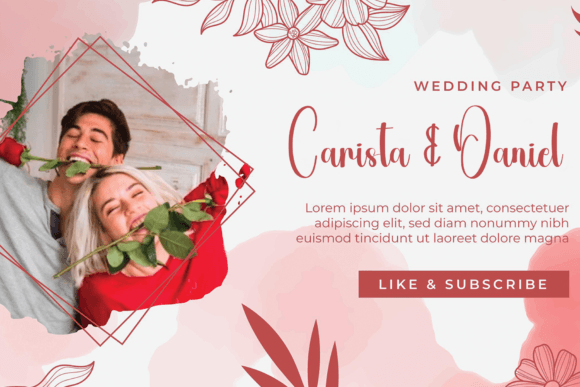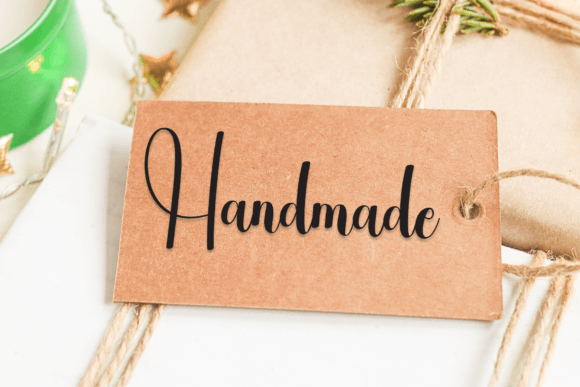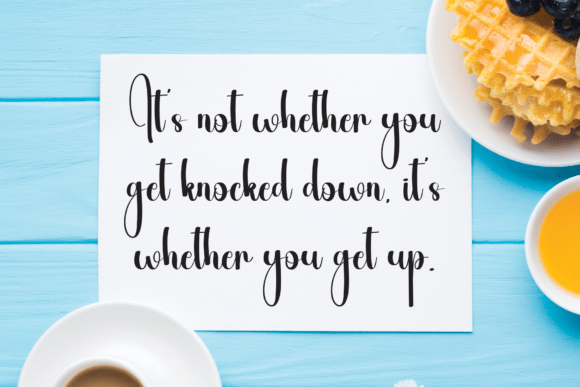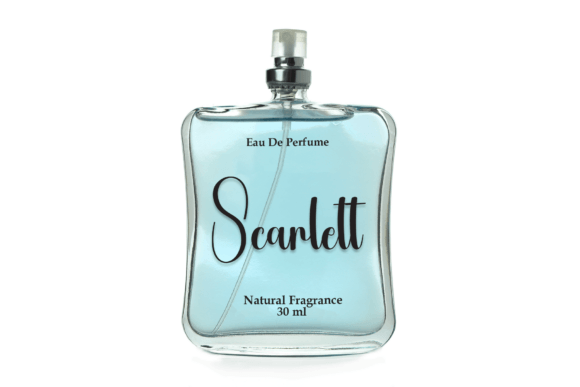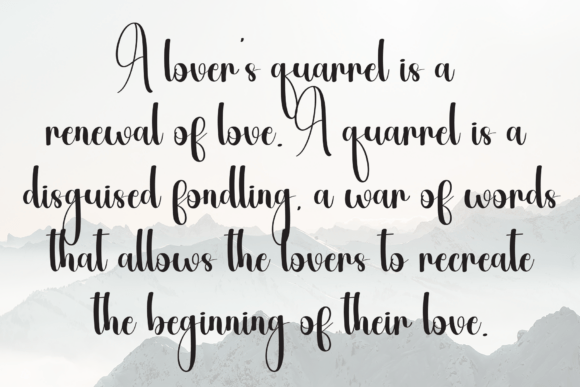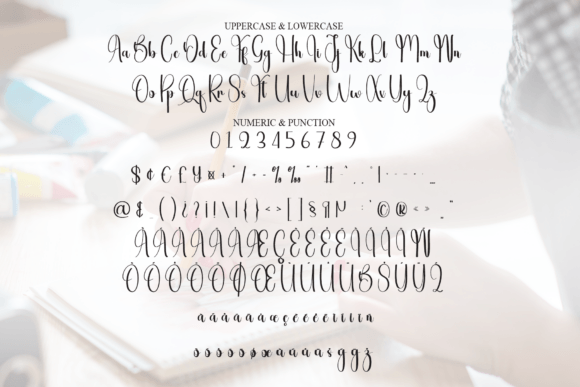
Introducing Autography Font: The Perfect Blend of Sweetness and Friendliness
Are you tired of using the same old fonts for your design projects? Do you want to add a touch of whimsy and fun to your wedding invitations, cards, and other creative endeavors? Look no further than Autography Font, an enchanting handwritten display font that effortlessly merges sweetness and friendliness into every curve and line.
A Font that’s Precious yet Playful
Autography Font is a unique and captivating font that is both precious and playful. Its endearing charm and lighthearted aesthetic make it the perfect accomplice for scribing wedding invitations, crafting cards, or infusing any design project with an uninhibited touch of fun. With its delicate and cursive strokes, this font is sure to add a touch of elegance and sophistication to any design.
Whether you’re a designer or a crafter, Autography Font is the perfect addition to your font collection. Its versatility and flexibility make it suitable for a wide range of design projects, from wedding invitations and cards to posters and social media graphics. With Autography Font, you can add a personal touch to your designs and make them stand out from the crowd.
Key Features of Autography Font
- Handwritten display font: Autography Font is a handwritten display font that is designed to add a personal touch to your designs.
- Sweet and friendly: This font effortlessly merges sweetness and friendliness into every curve and line, making it perfect for designs that require a touch of warmth and personality.
- Precious yet playful: Autography Font is both precious and playful, making it suitable for a wide range of design projects, from wedding invitations to posters and social media graphics.
- Easy to read: Despite its delicate and cursive strokes, Autography Font is easy to read and understand, making it perfect for designs that require a clear and concise message.
Uses of Autography Font
Autography Font is a versatile font that can be used for a wide range of design projects, including:
- Wedding invitations: Add a touch of elegance and sophistication to your wedding invitations with Autography Font.
- Cards: Create beautiful and personalized cards for special occasions, such as birthdays, anniversaries, and holidays.
- Posters: Use Autography Font to create eye-catching posters for events, promotions, and products.
- Social media graphics: Add a personal touch to your social media graphics with Autography Font.
Tips for Using Autography Font
Here are some tips for using Autography Font effectively in your designs:
- Use it sparingly: Autography Font is a delicate and cursive font, so it’s best to use it sparingly to avoid overwhelming the design.
- Pair it with other fonts: Pair Autography Font with other fonts to create a unique and visually appealing design.
In conclusion, Autography Font is a unique and captivating font that is perfect for designers and crafters who want to add a touch of whimsy and fun to their designs. With its endearing charm and lighthearted aesthetic, this font is sure to grace your design with a sprightly spark and whimsical magic. So why wait? Download Autography Font today and start creating beautiful and personalized designs that will leave a lasting impression.